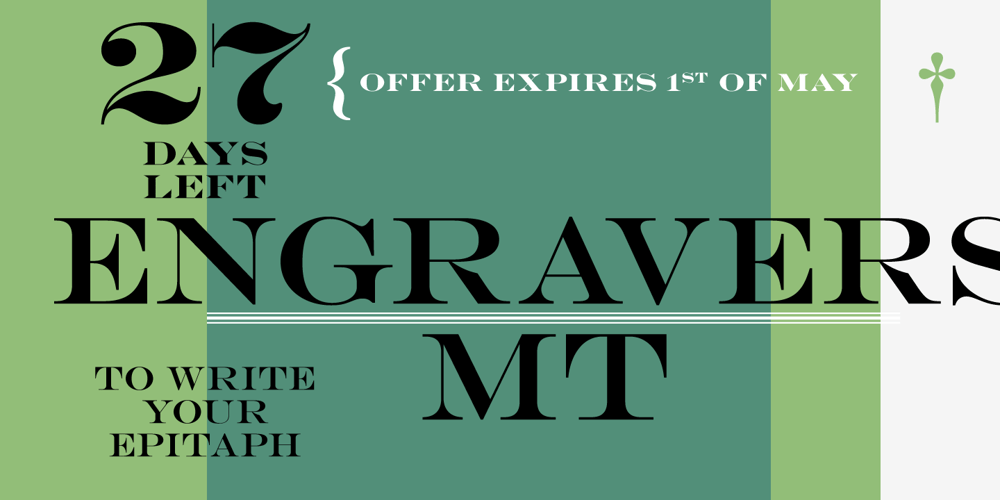
Monotype Engravers Font Family was designed by Monotype Design Studio, Robert Wiebking and published by Monotype. Monotype Engravers contains 2 styles and family package options. The rather wide, caps-only Monotype Engravers family imitates scripts that evolved from copperplate and steel plate engravers hands of the nineteenth century, which were a quite expressive medium! Monotype Engravers’ letters show a strong contrast between thick and thin strokes and have sharply cut serifs.In 1899, Robert Wiebking (who worked for a number of foundries in his time) designed an all-caps typeface named Engravers Roman.”” Shortly thereafter, American Type Founders, Inc. (ATF) released another successful ancestor of this design in 1902, “”Engravers Bold,”” designed by Morris Fuller Benton. Engravers Bold was also released by the Barnhart Brothes & Spinder foundry.Also made available by Lanston Monotype at the beginning of the twentieth century, the Engravers faces soon became a popular choice for letter heads, advertising and stationery.